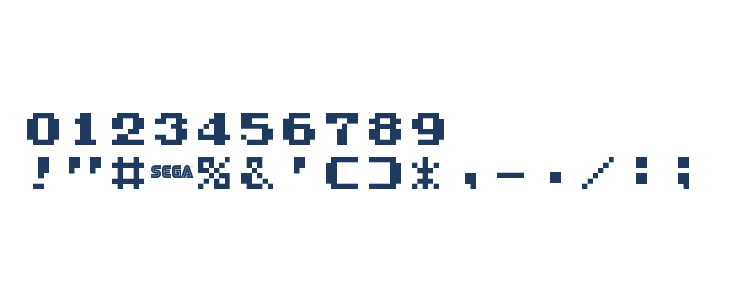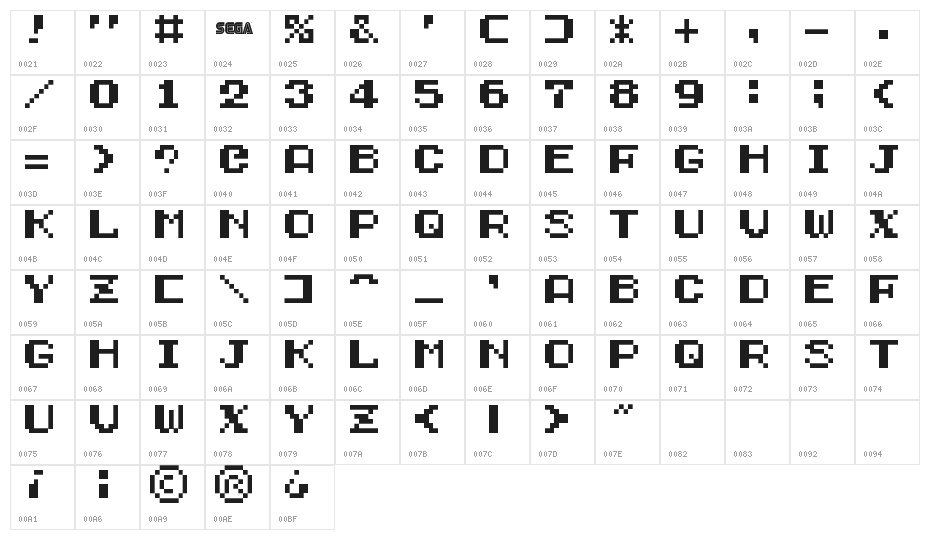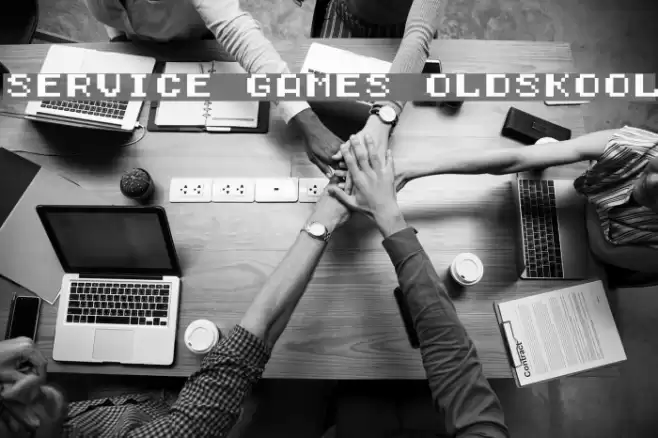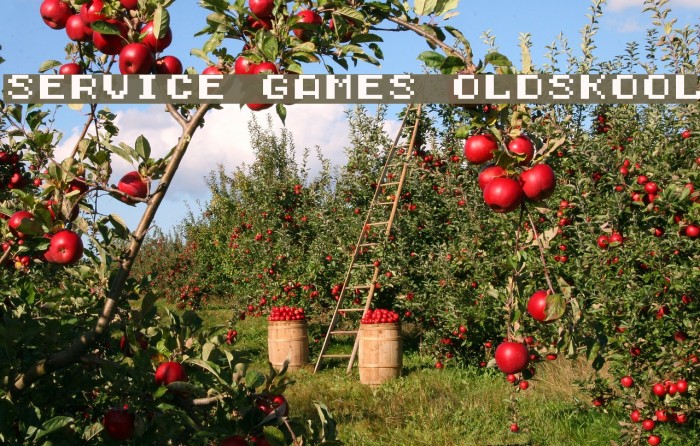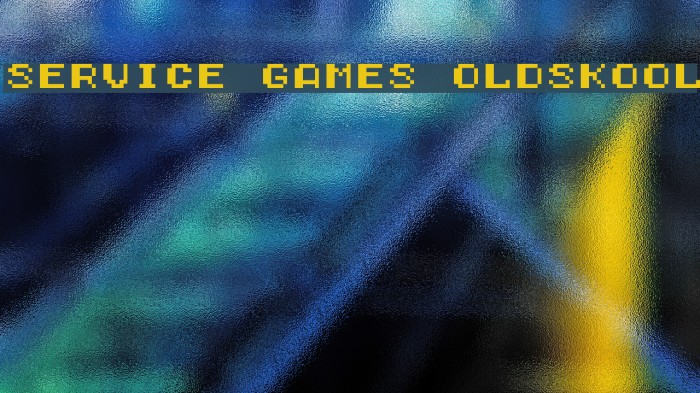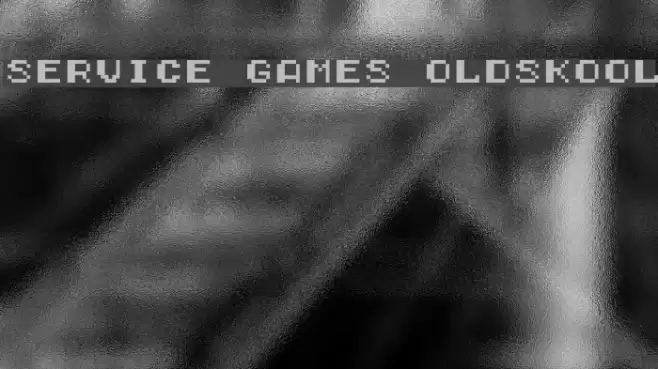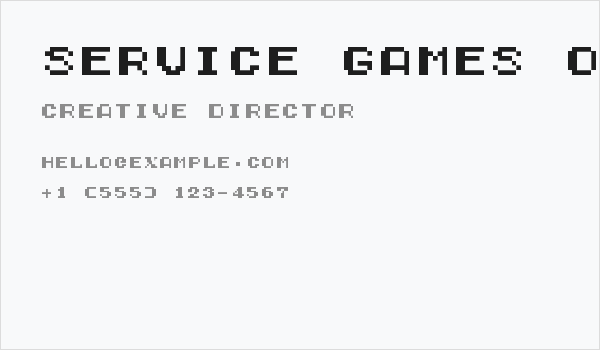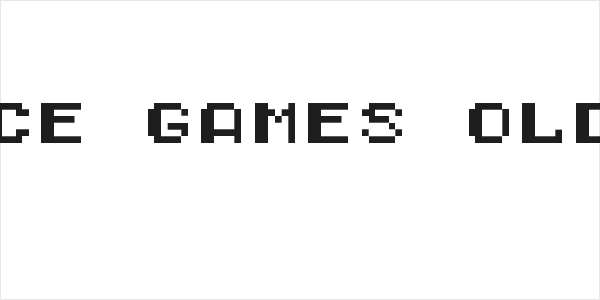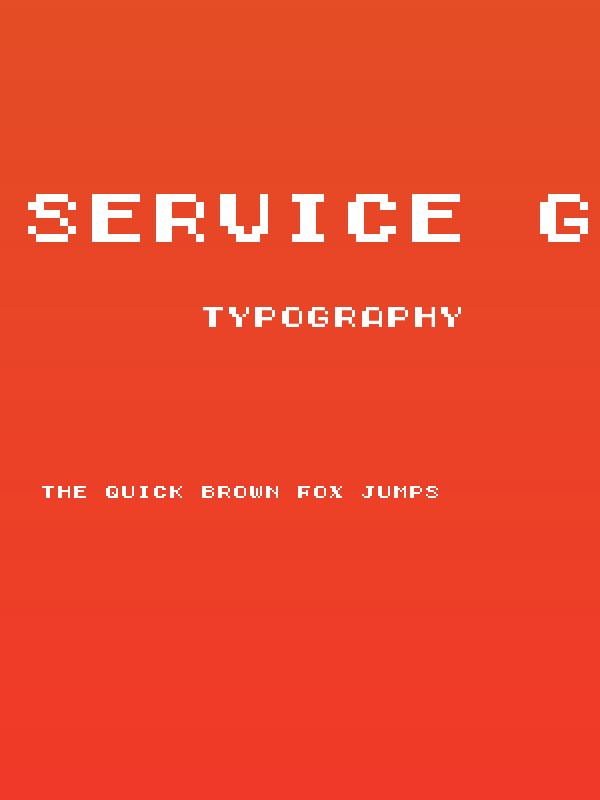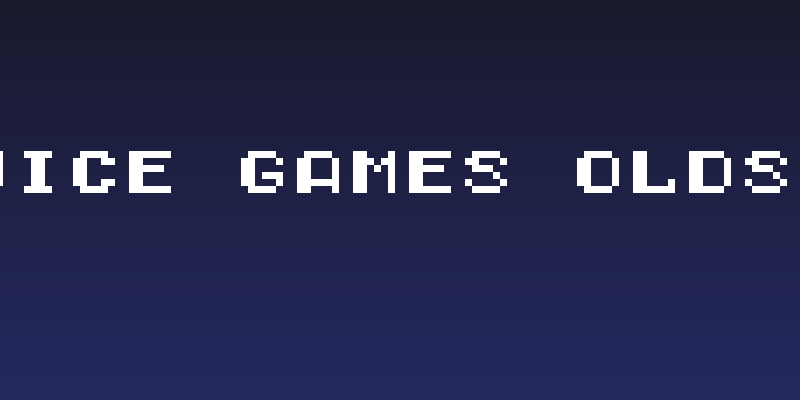
Service Games Oldskool Font
Service Games Oldskool Description
This font exhibits a retro, pixelated style reminiscent of early video game graphics. Each character is constructed with a blocky, grid-like appearance, evoking a sense of nostalgia for classic arcade games. The uppercase and lowercase letters maintain a consistent height, contributing to a uniform look. Numbers and special characters follow the same pixelated design, ensuring cohesion across all glyphs. The font's simplicity and geometric form make it highly legible, even at smaller sizes. Its distinct style is ideal for projects aiming to capture a vintage or retro gaming aesthetic.
Proposed ProjectsIdeal for retro video game designs, nostalgic branding, pixel art projects, and vintage-themed posters.